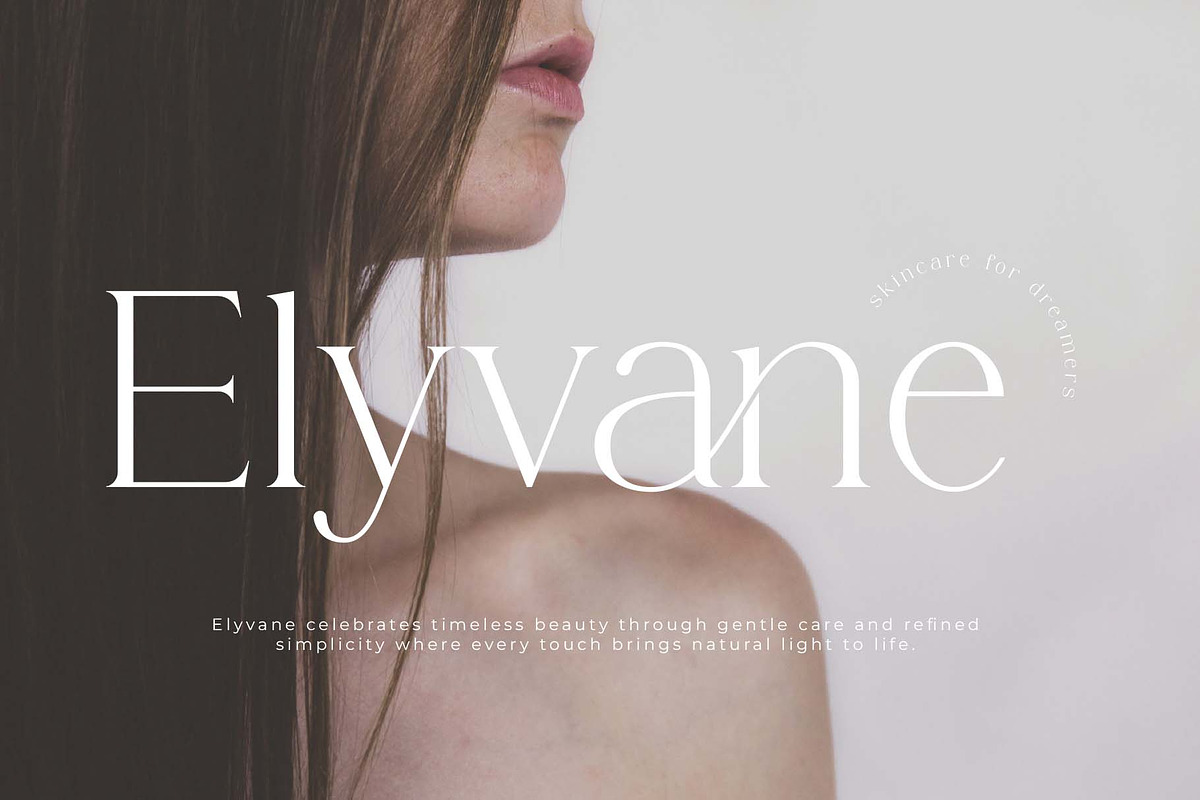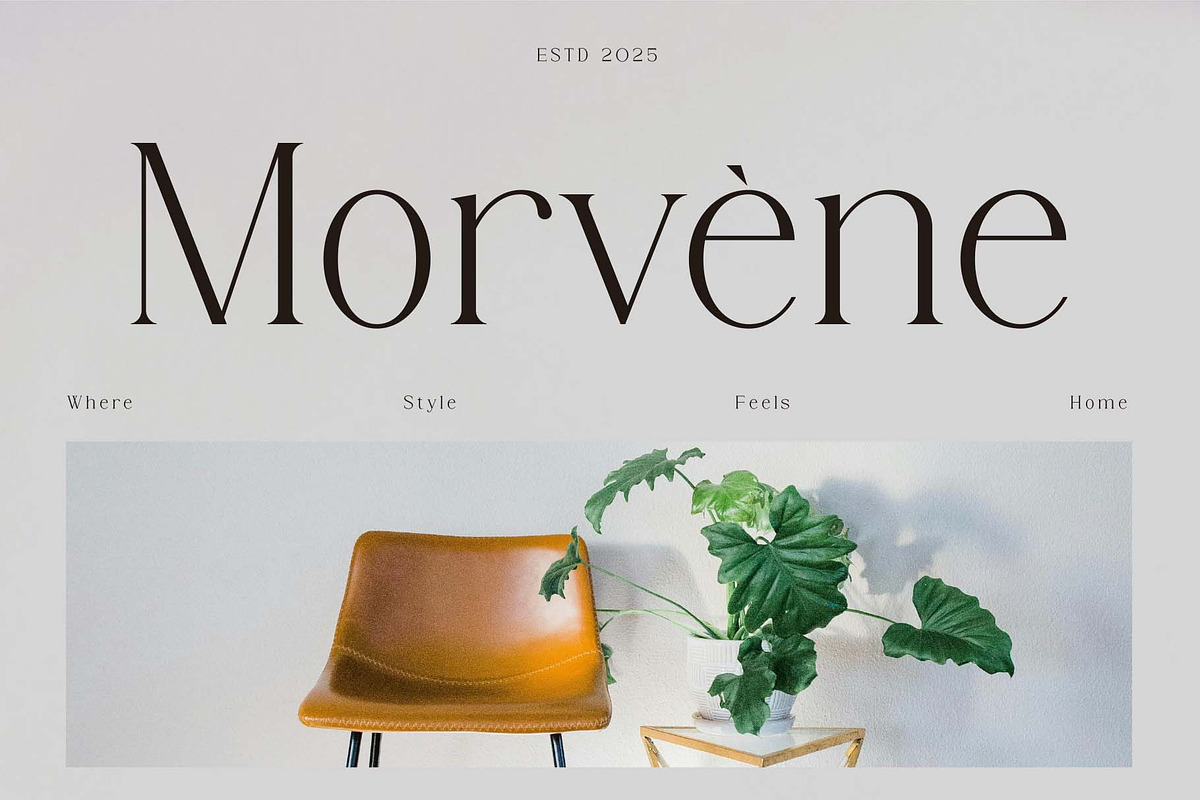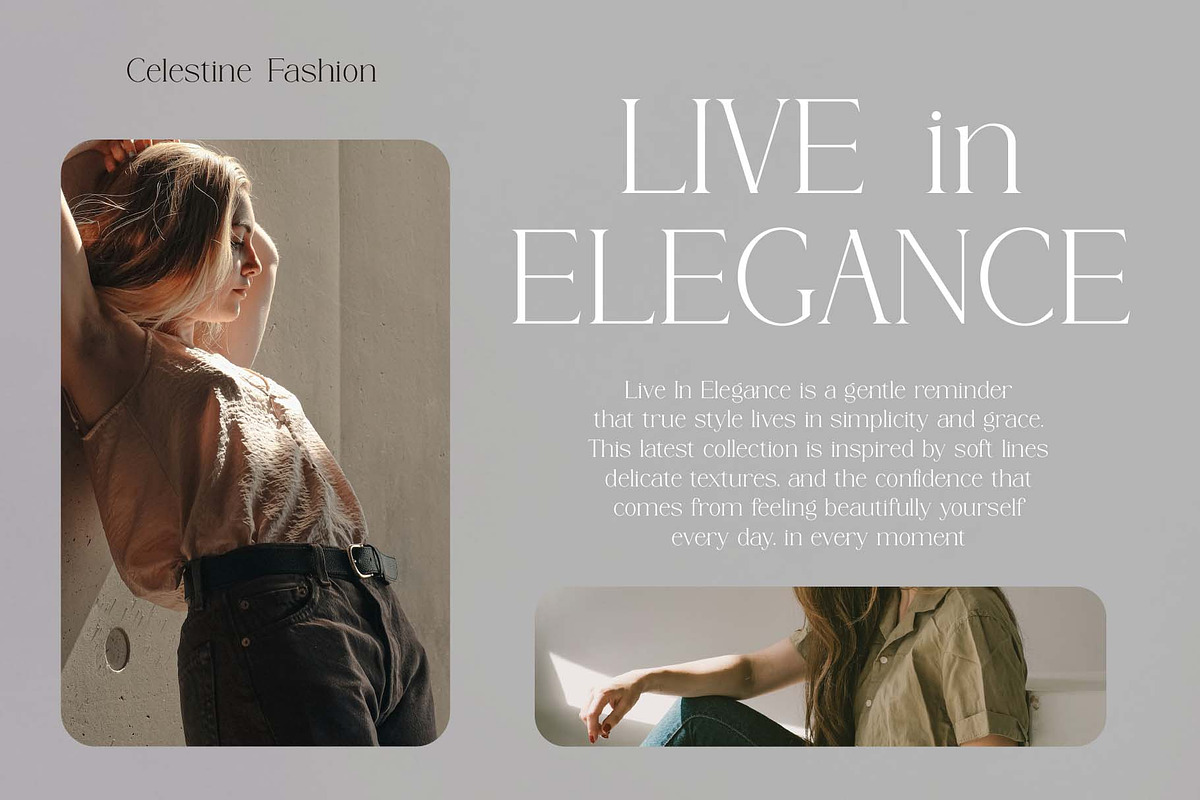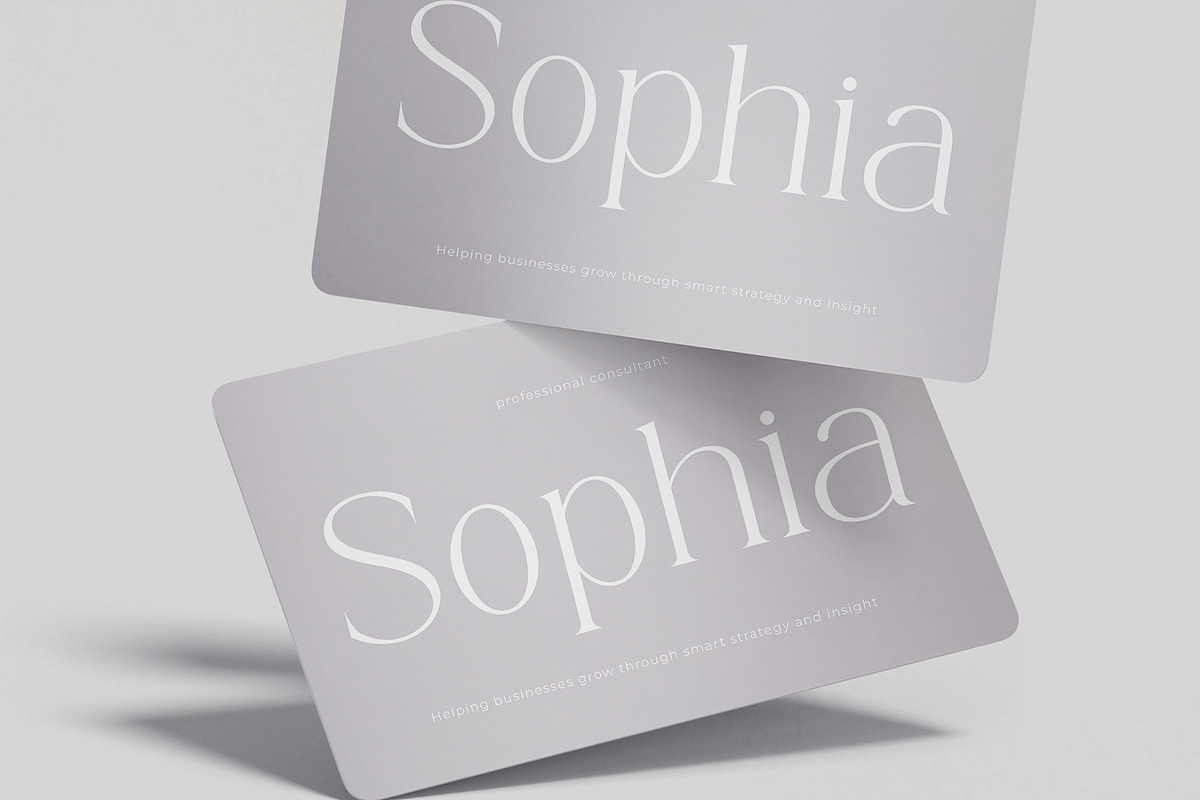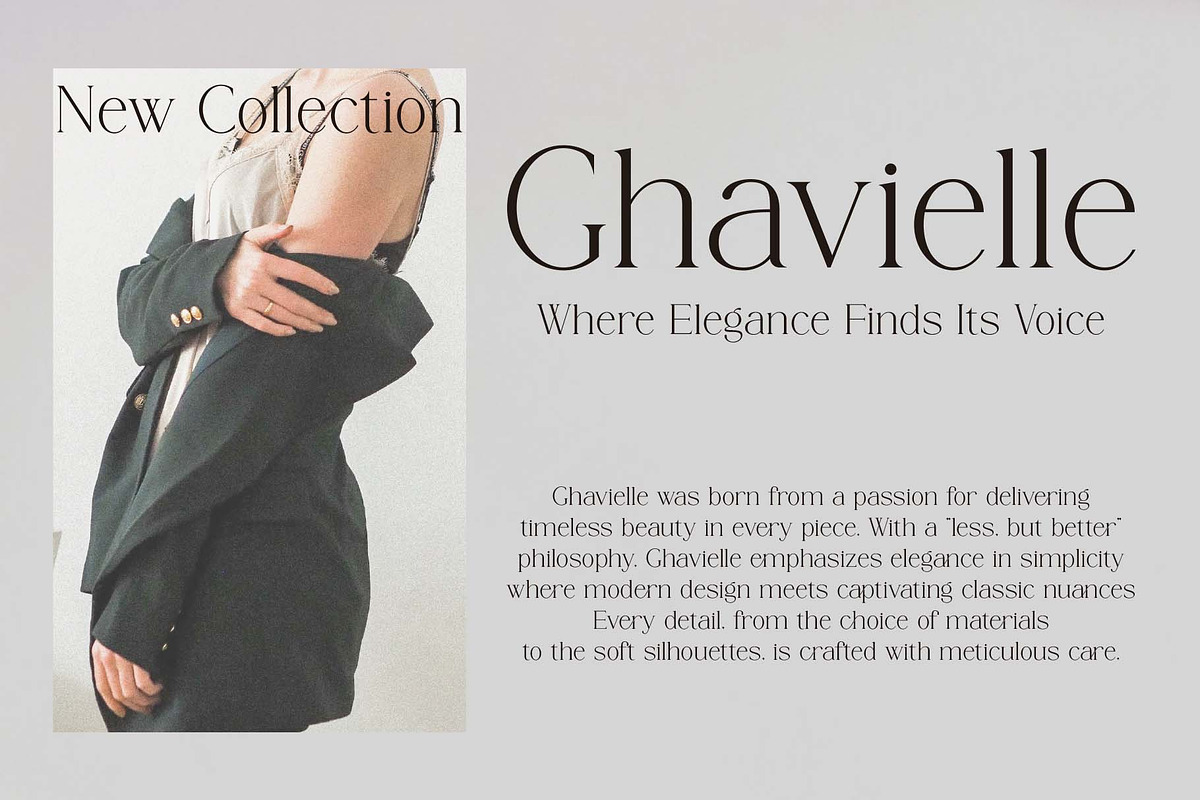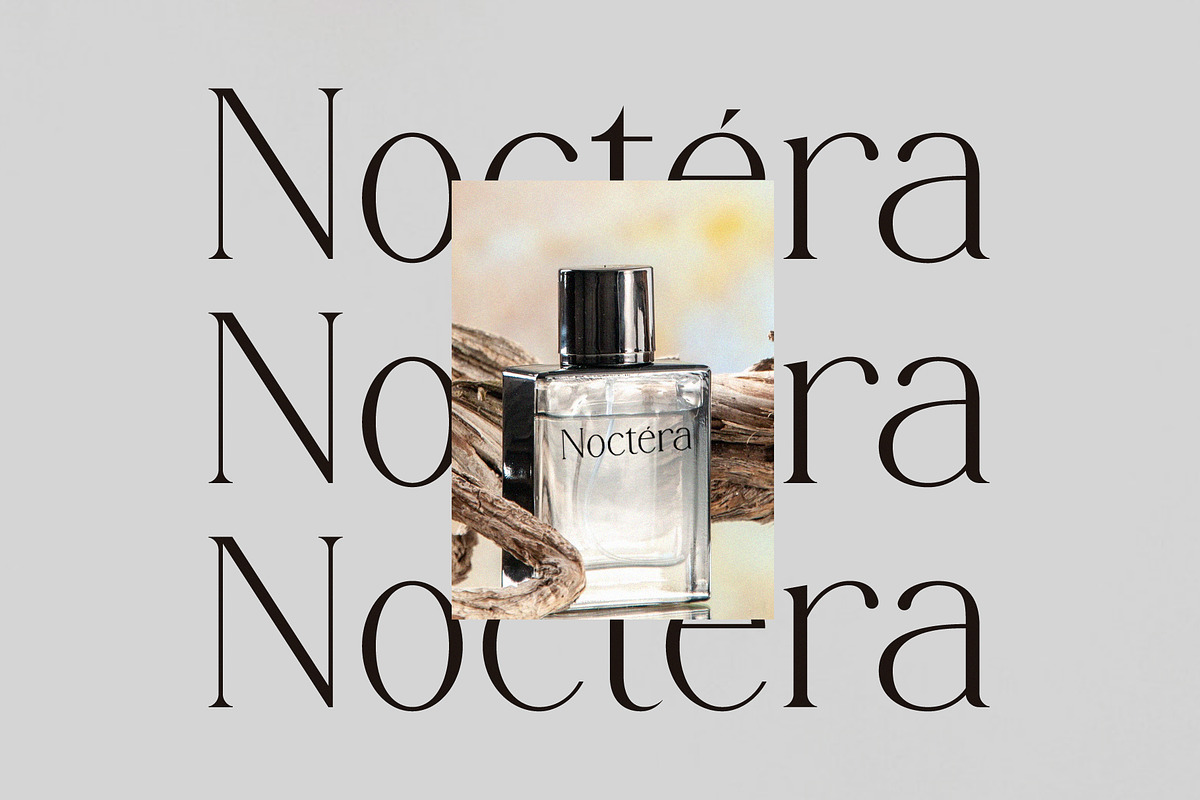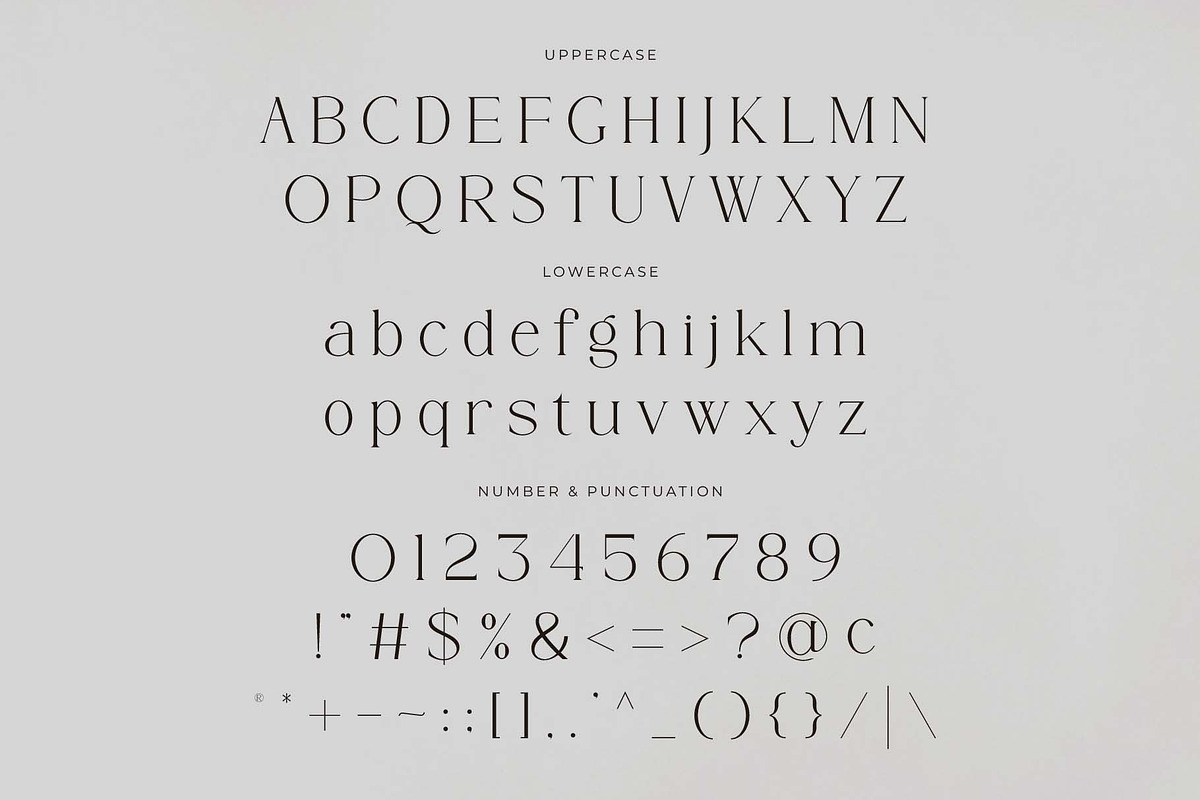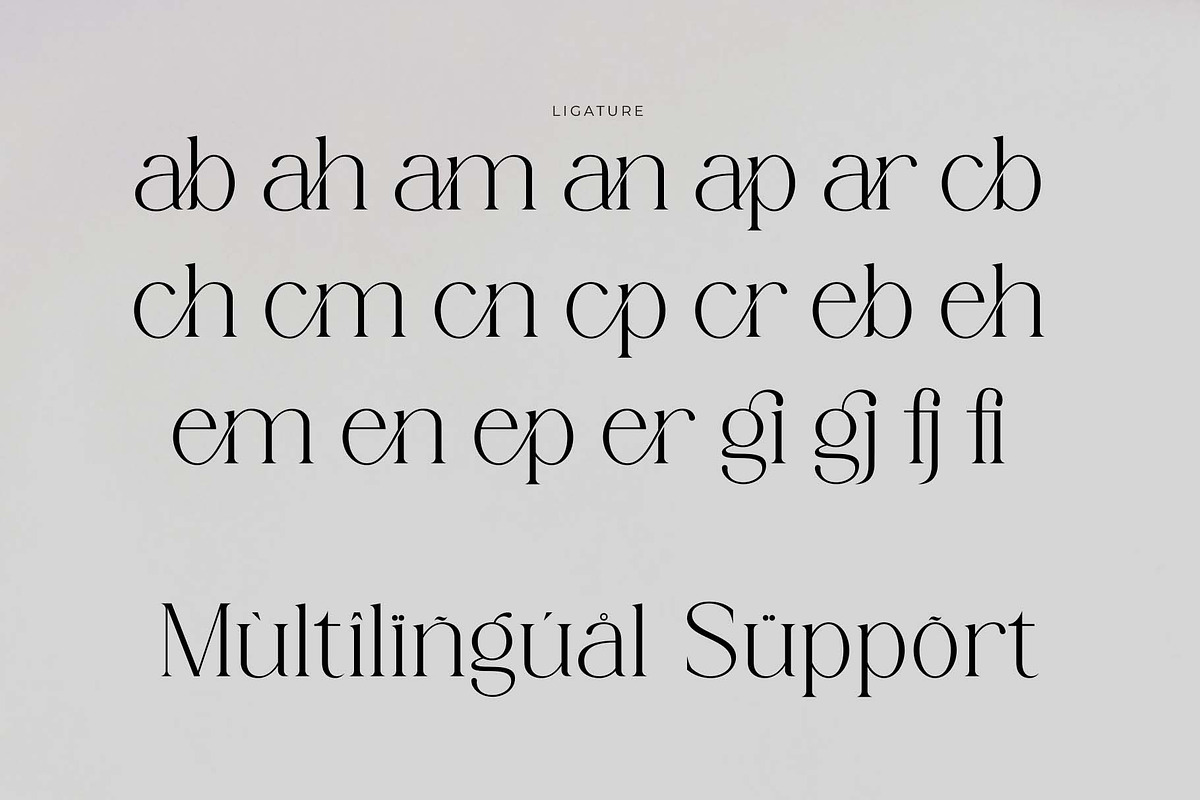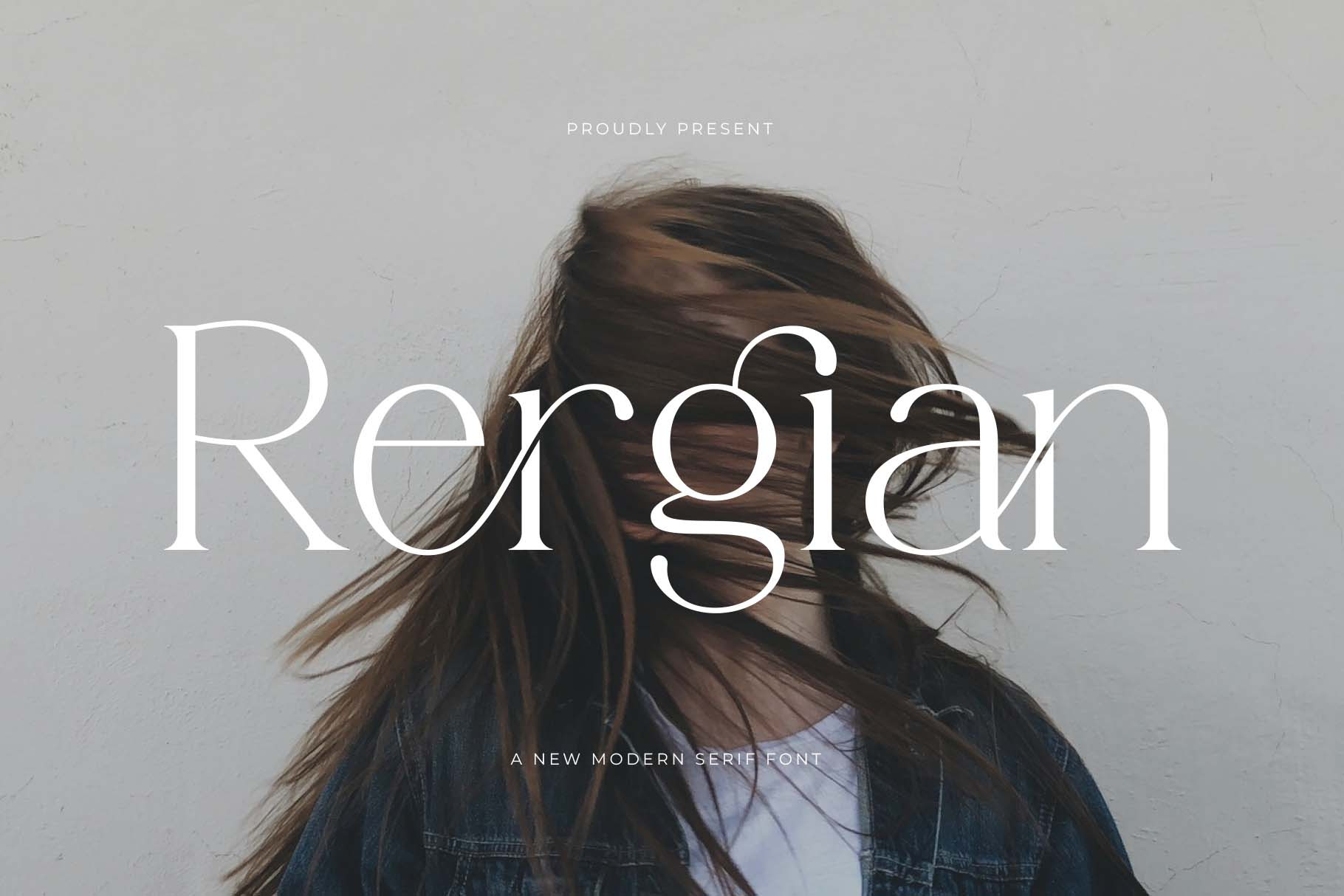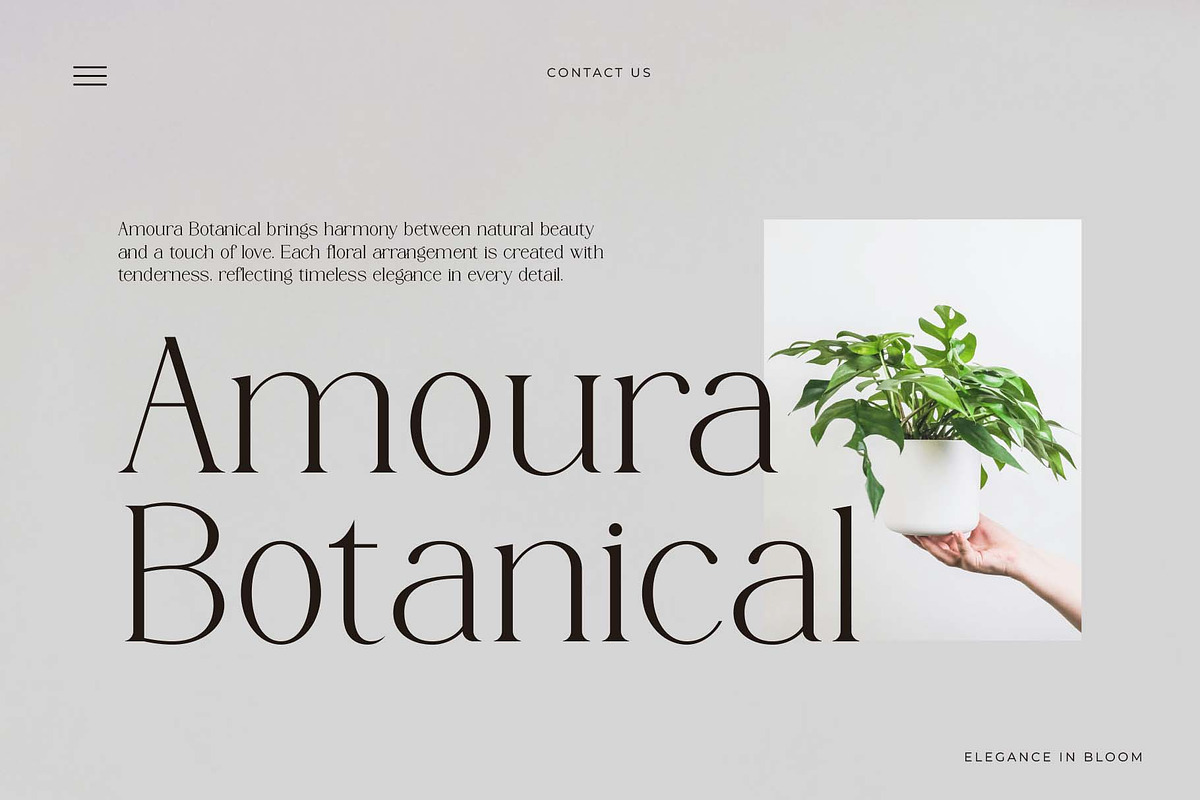
Rergian - A New Moderen Serif Font
Introducing Rergian the elegant, beautiful, and modern Serif. With its modern and minimalist look, Rergian brings a luxurious, classy, and clean style to your projects such as websites, modern logos, brand identities, social media quotes, wedding stationery, magazines, and more!
Rergian features unique and classy capital letters A to Z and also comes with unique alternates making Rergian a beautiful font that can be customized for various projects and jobs you want.
Rergian is perfect for: logos, brands, wedding invitations, business cards, greeting cards, posters, magazines, social media, agenda prints, and websites.
* Uppercase and lowercase letters
* Multilingual Characters
* Numbers & punctuation
* Alternative styles and ligatures